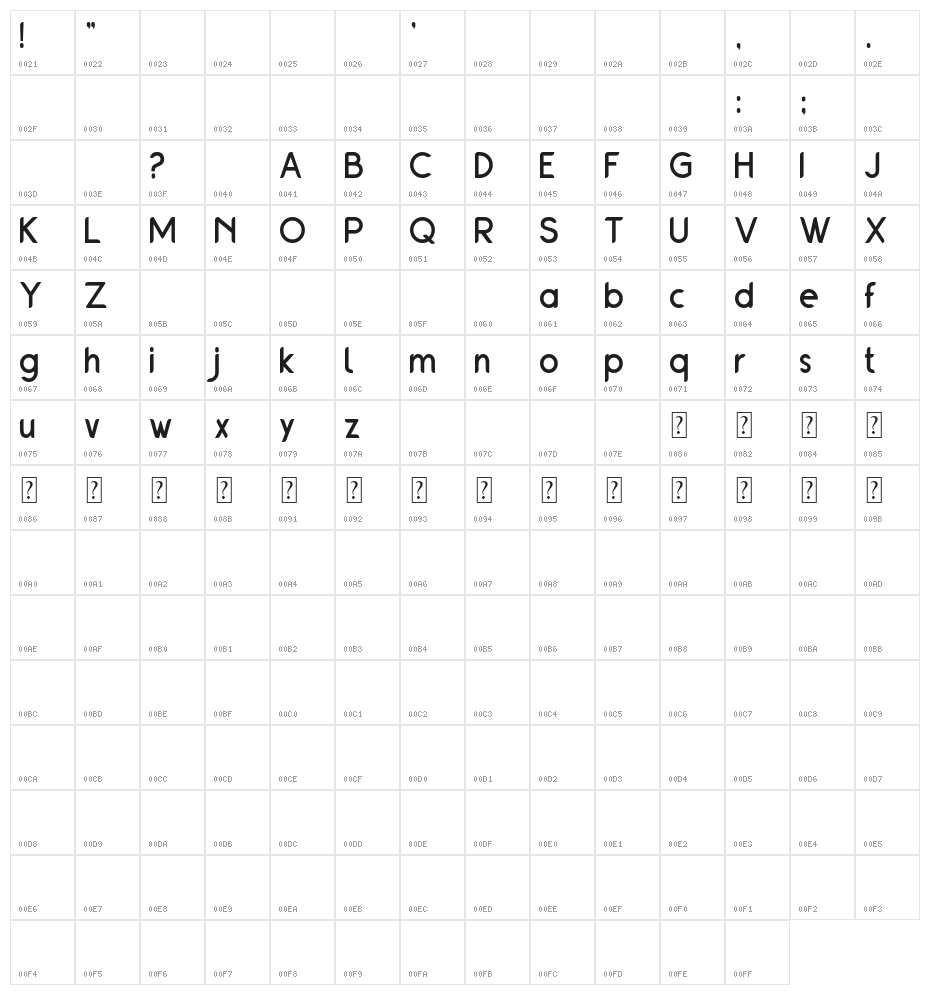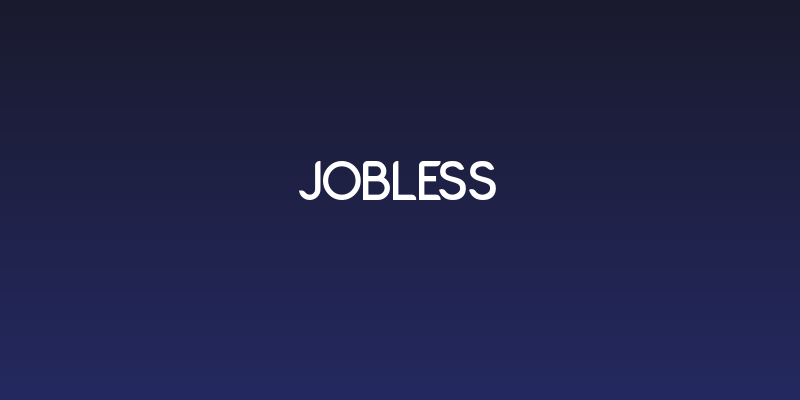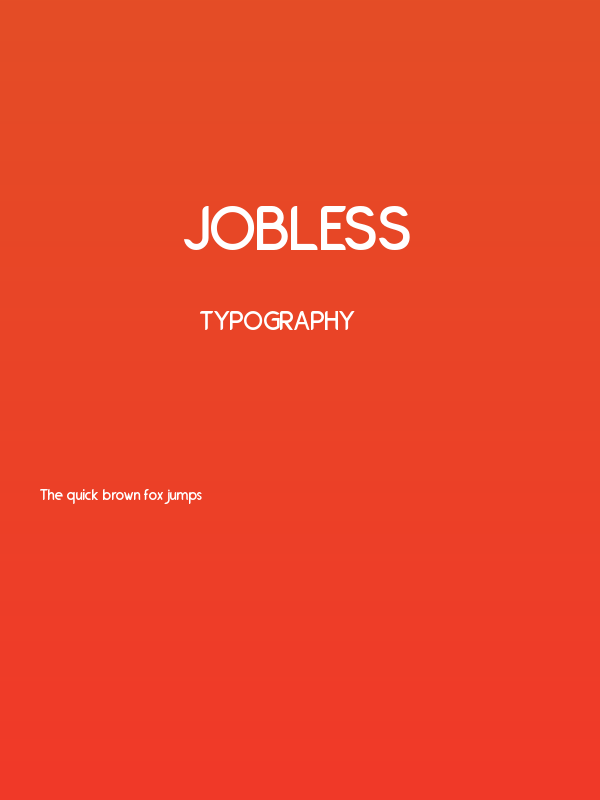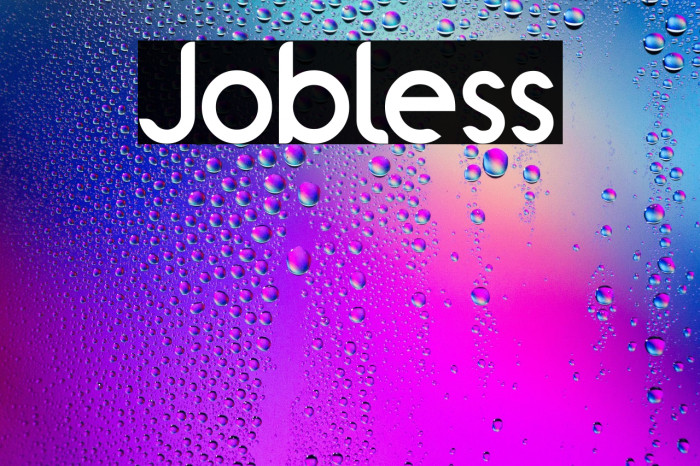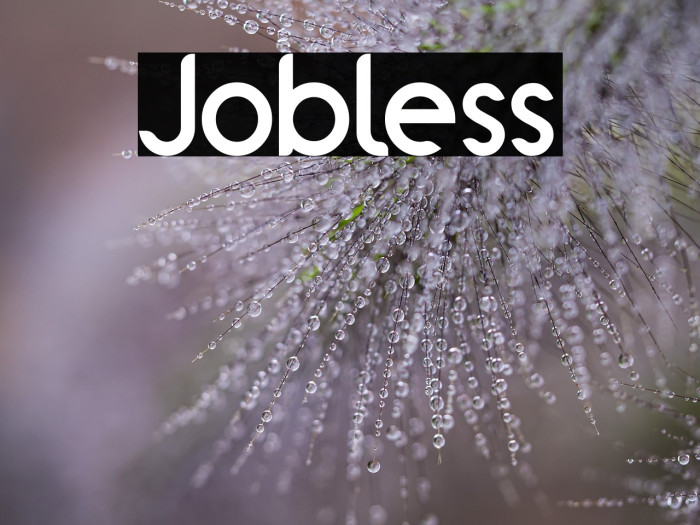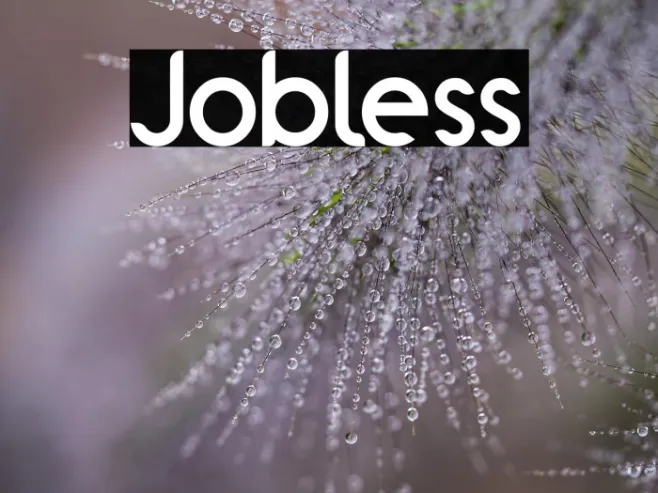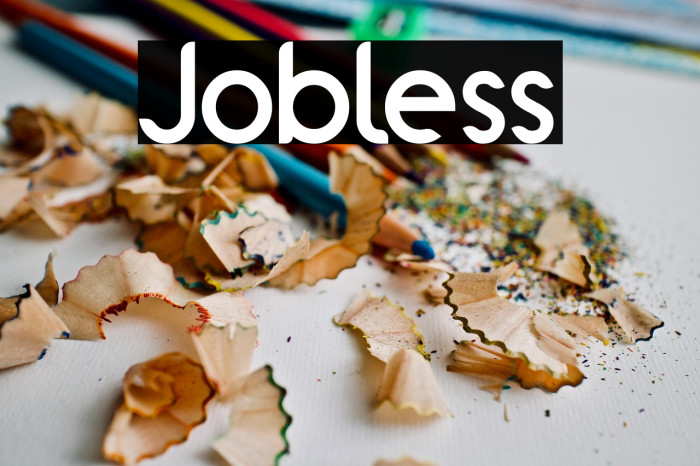
Jobless Font
Jobless Description
This font features a clean and modern sans-serif style with smooth, rounded edges that give it a friendly and approachable appearance. The uppercase and lowercase letters maintain a consistent stroke width, contributing to a harmonious and balanced look. The characters are well-proportioned, with a slightly condensed width that enhances readability without sacrificing style. The numerals and special characters are designed to match the overall aesthetic, ensuring a cohesive appearance across all text elements. This font's simplicity and clarity make it versatile for various design applications.